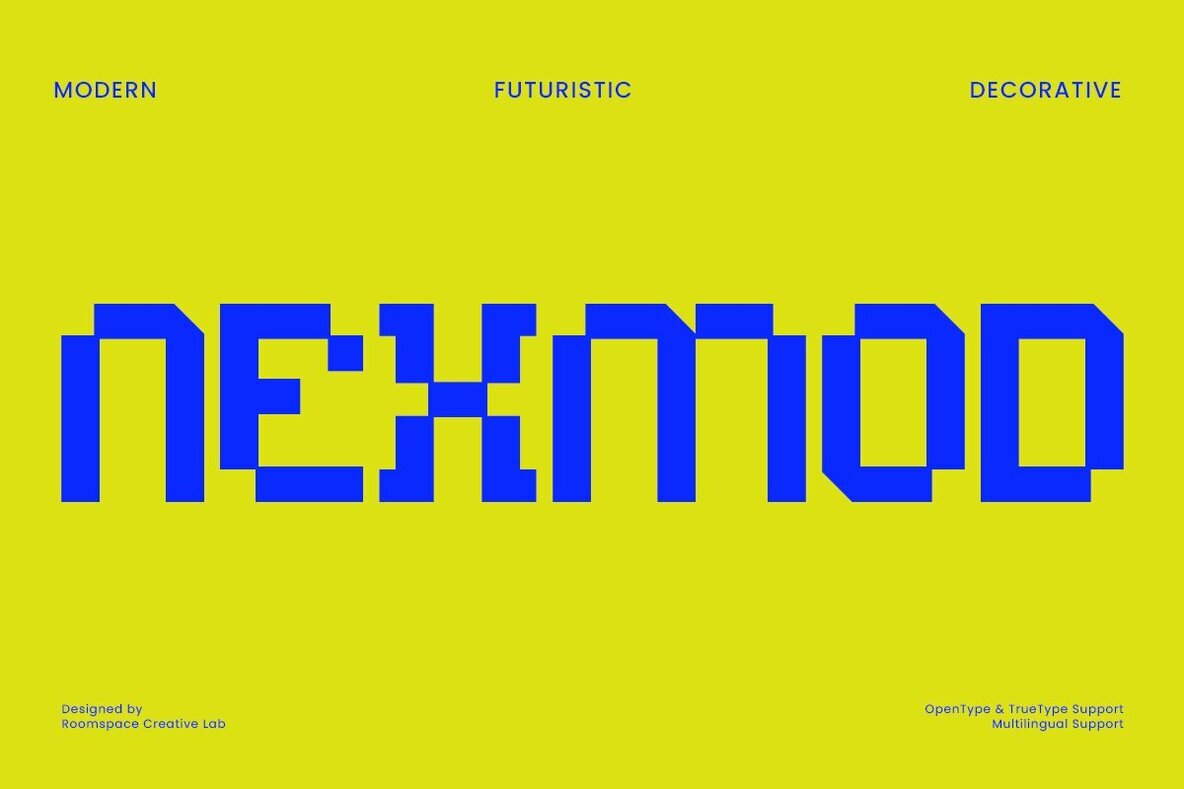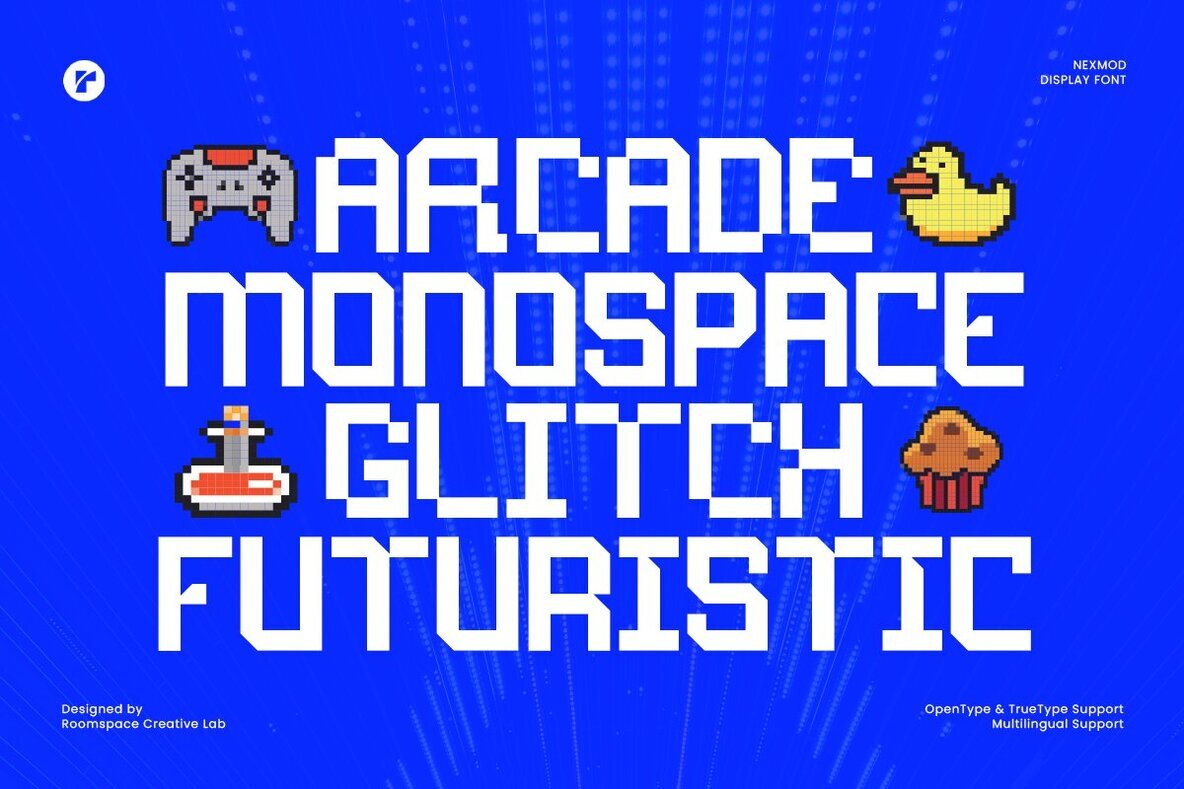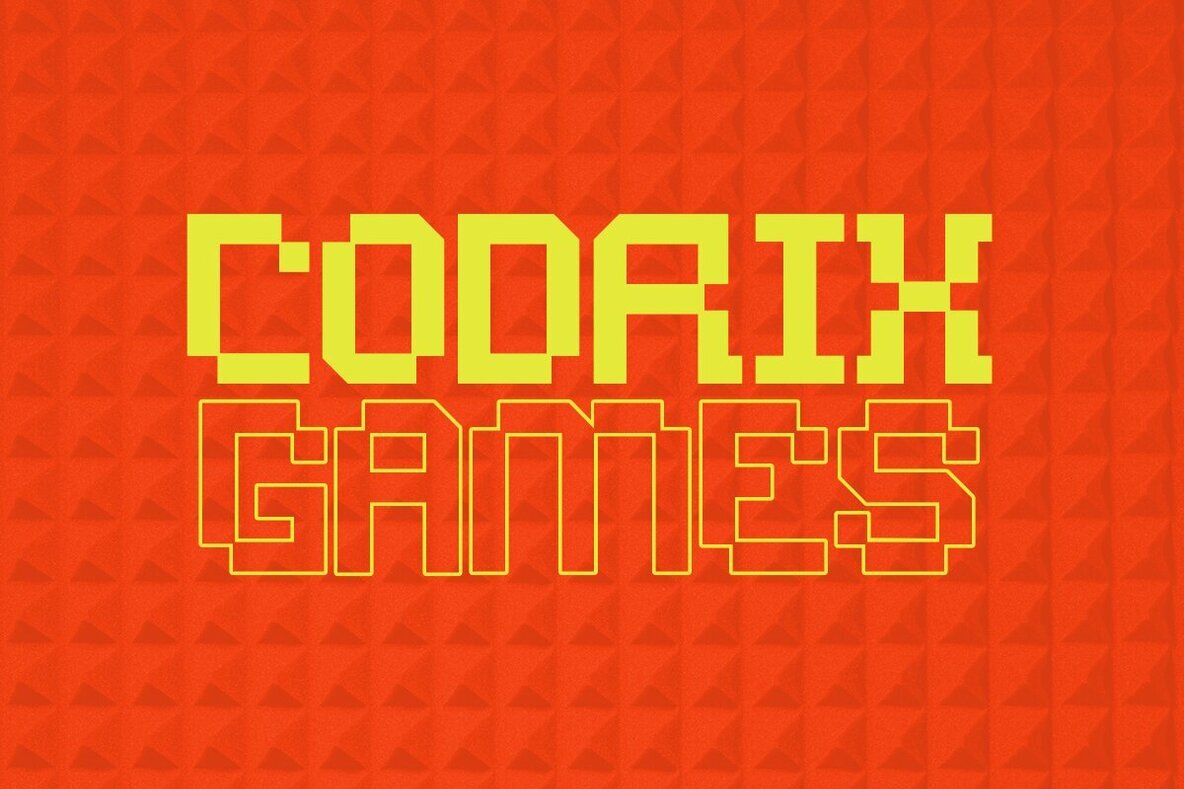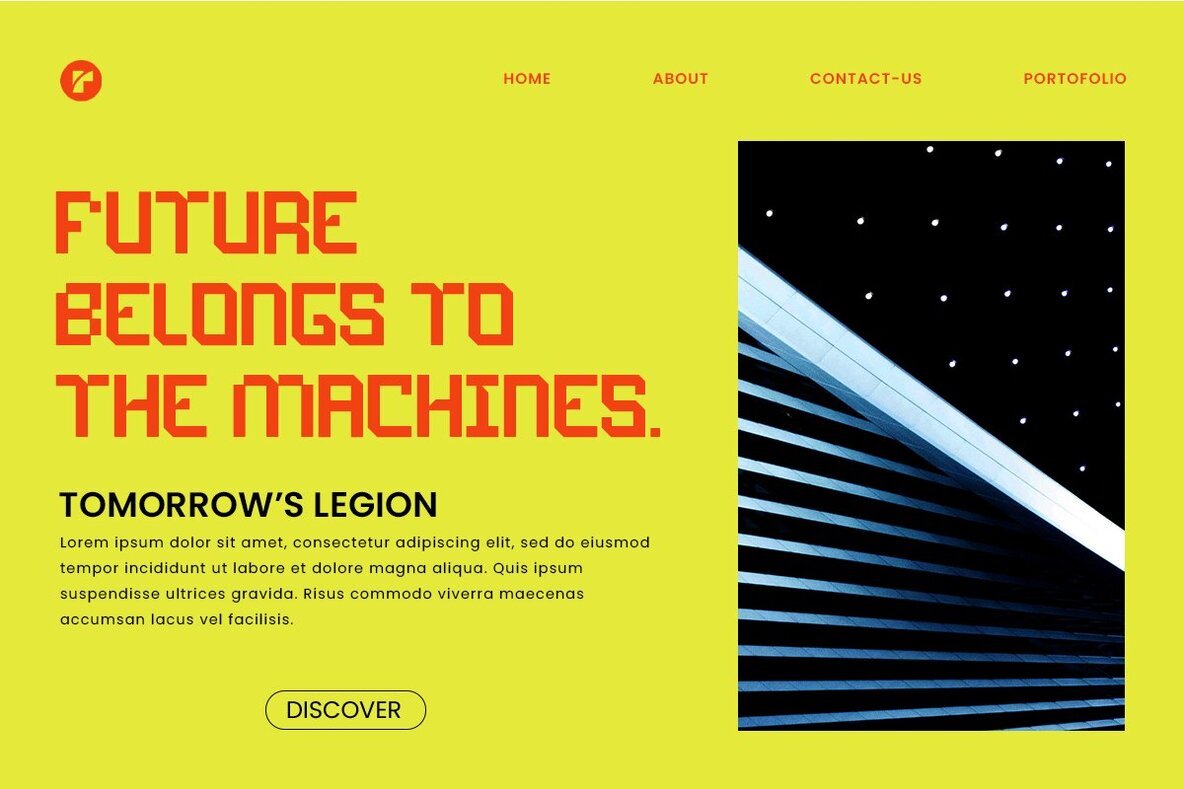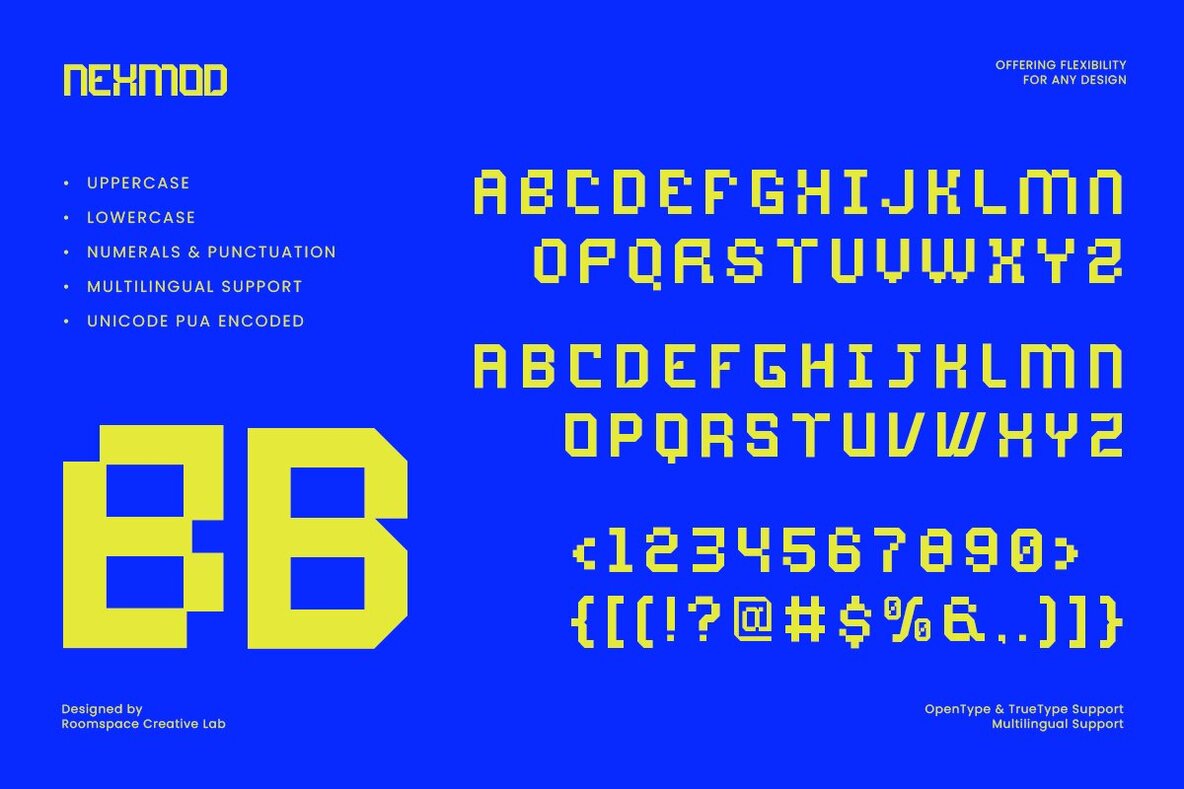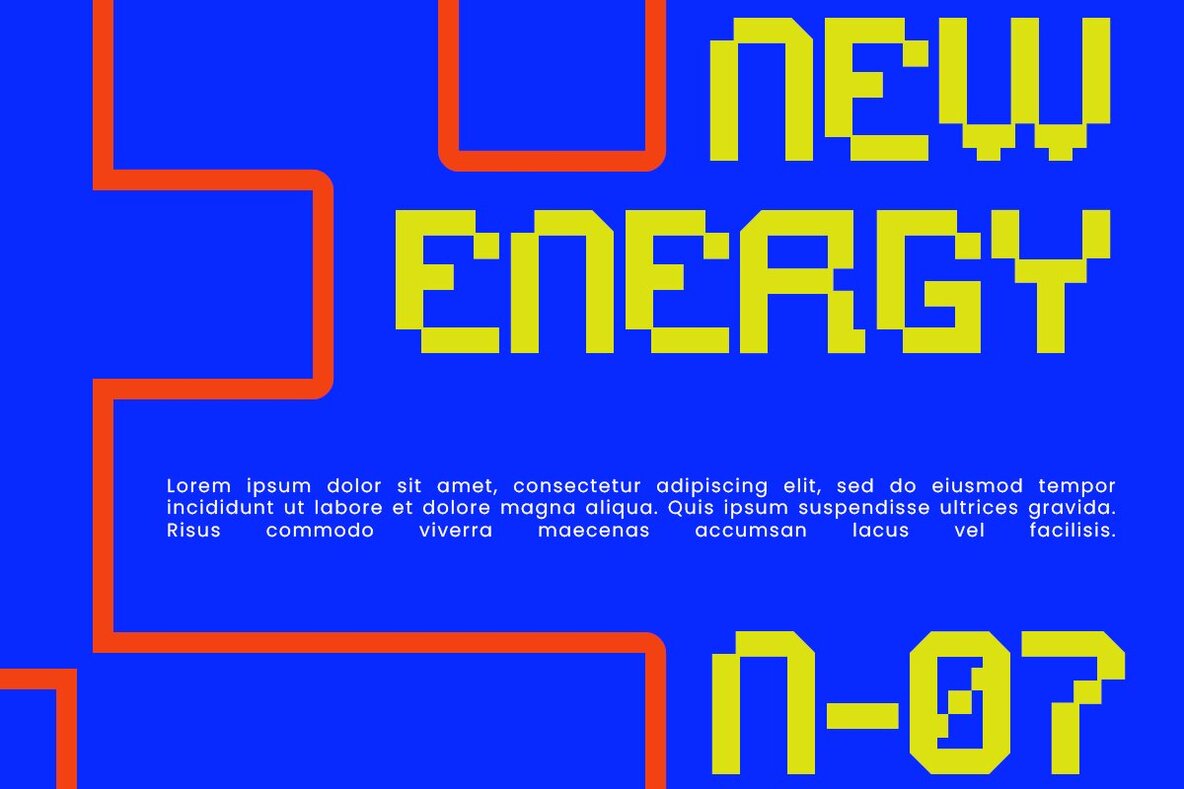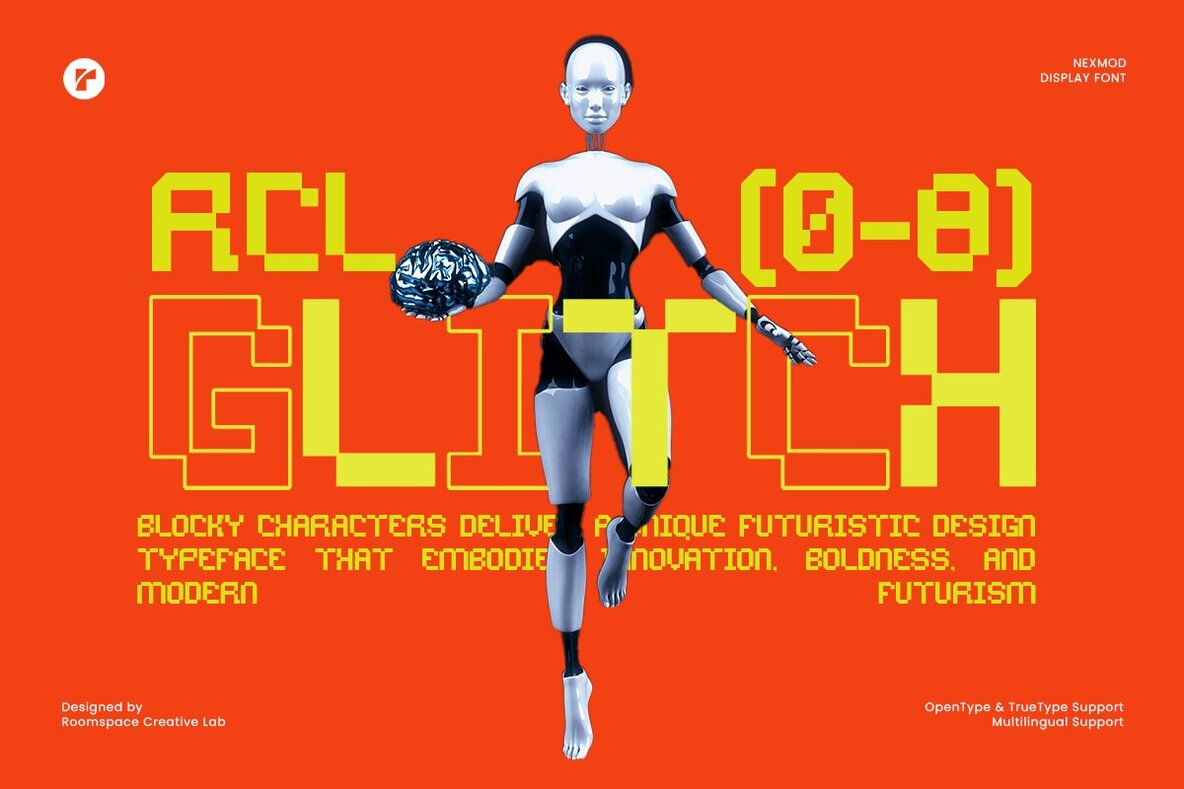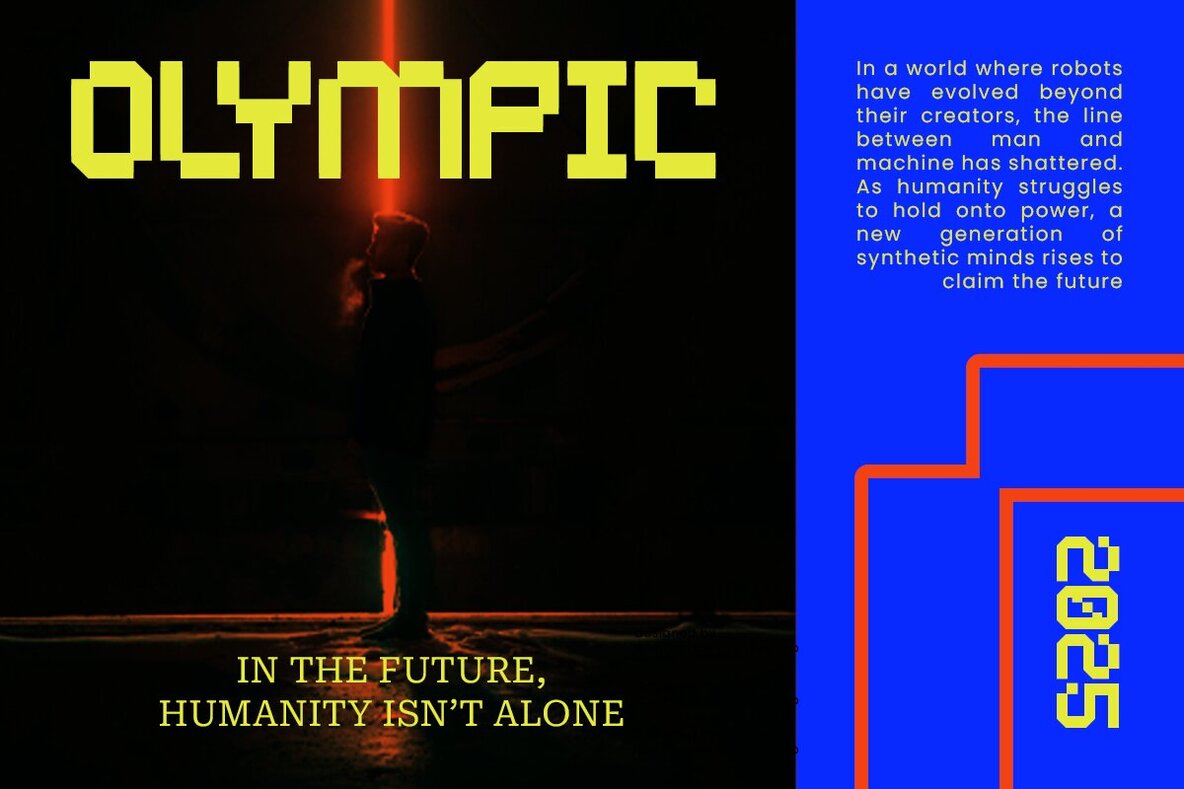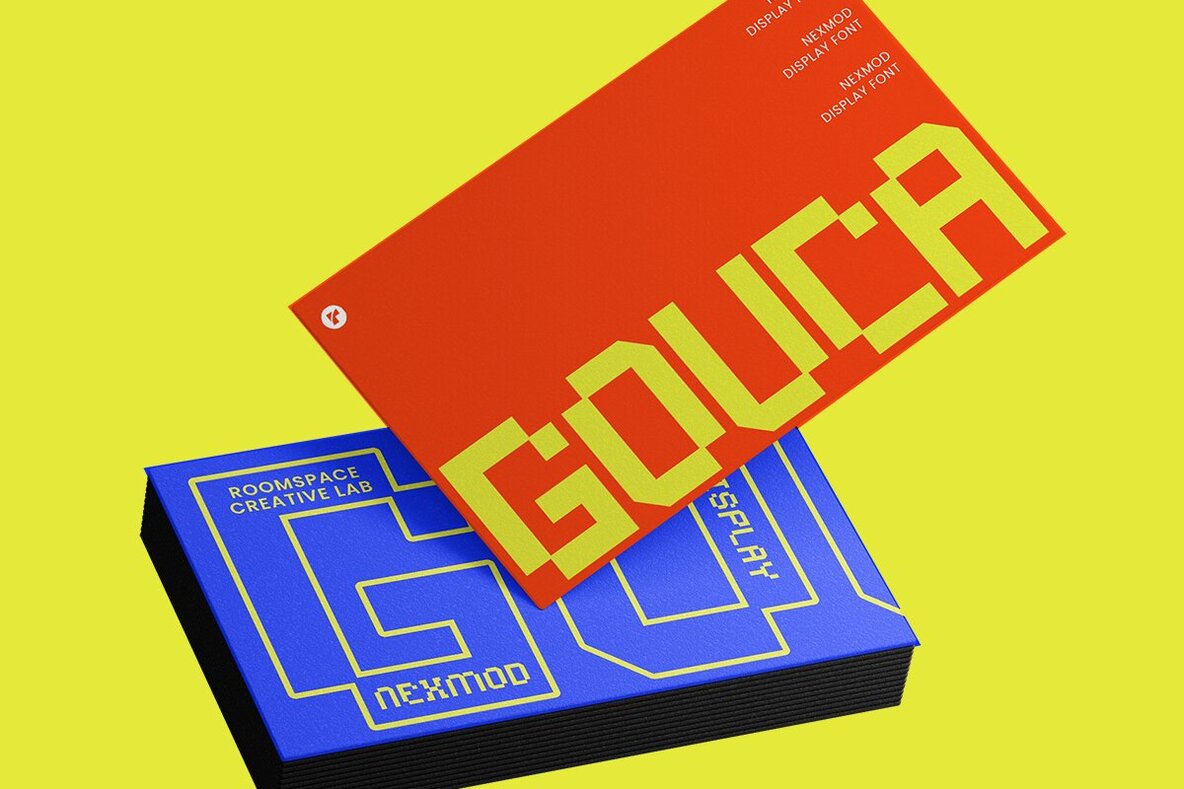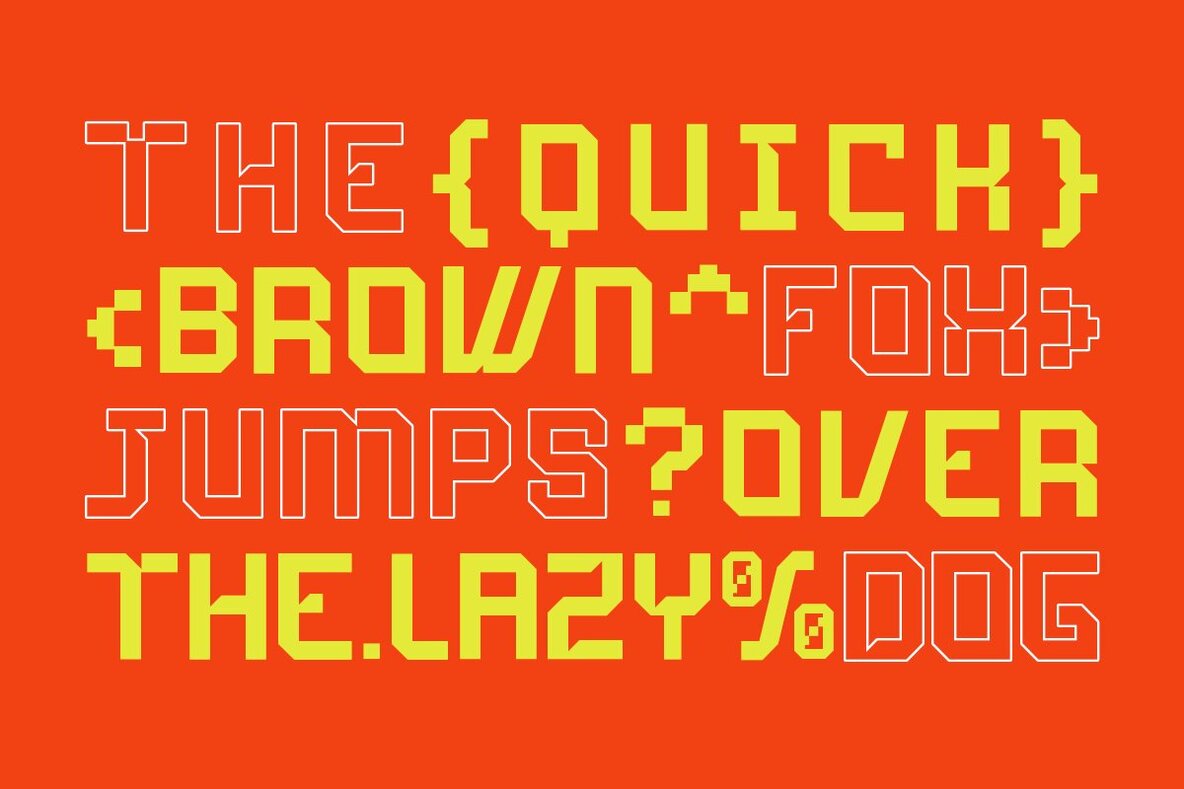
Nexmod Font
Nexmod is a futuristic decorative display font built with bold geometric shapes and modular forms. Its sharp angles and blocky style create a modern and innovative look, making it stand out in any design. Perfectly suited for projects that need a strong and forward-looking identity, Nexmod blends contemporary aesthetics with a digital edge. Each letter in Nexmod is crafted with precision, offering a balance of readability and distinctiveness. The font includes consistent kerning, smooth alignment, and supports both uppercase and lowercase characters. With OpenType features and multilingual support, it’s versatile enough for both experimental layouts and professional design needs. Ideal for tech branding, posters, album covers, editorial headlines, logos, and social media graphics, Nexmod gives your work a bold and futuristic presence. If you’re looking for a display font that captures the spirit of modern innovation and digital culture, Nexmod is ready to bring your creative vision to life. Support: